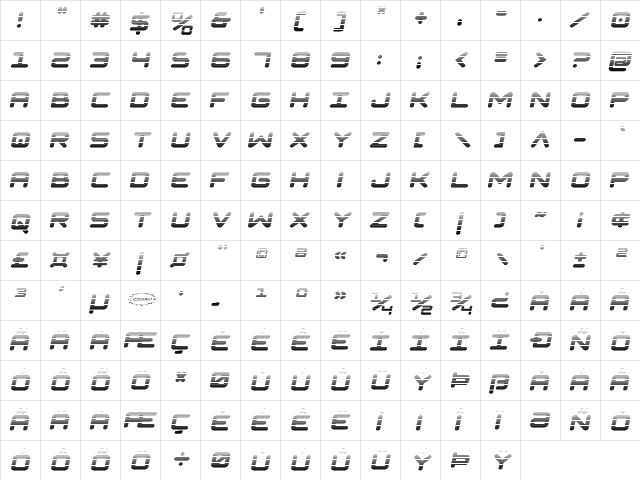
NGC 292 Gradient Semi-Italic Regular
Design Context for NGC 292 Gradient Semi-Italic Typeface
NGC 292 Gradient Semi-Italic offers clean, dependable letterforms without strong stylistic allegiance, making it a practical choice for designers who need flexibility. The dynamic lean of this cut emphasises speed and emphasis in any layout.
Pro Tip: Try NGC 292 Gradient Semi-Italic for annotation and caption copy alongside an upright companion — the contrast in angle creates a dynamic but ordered typographic system.